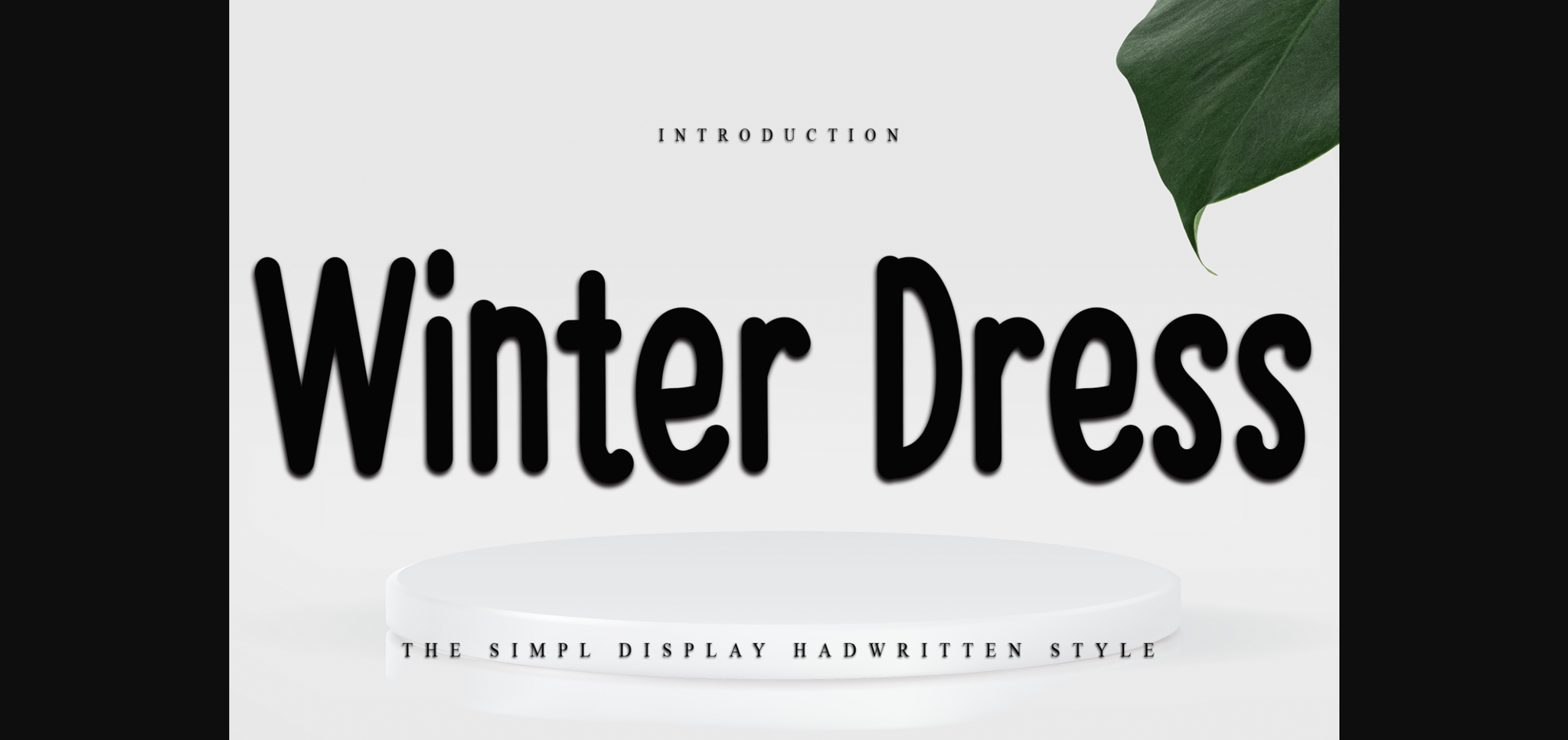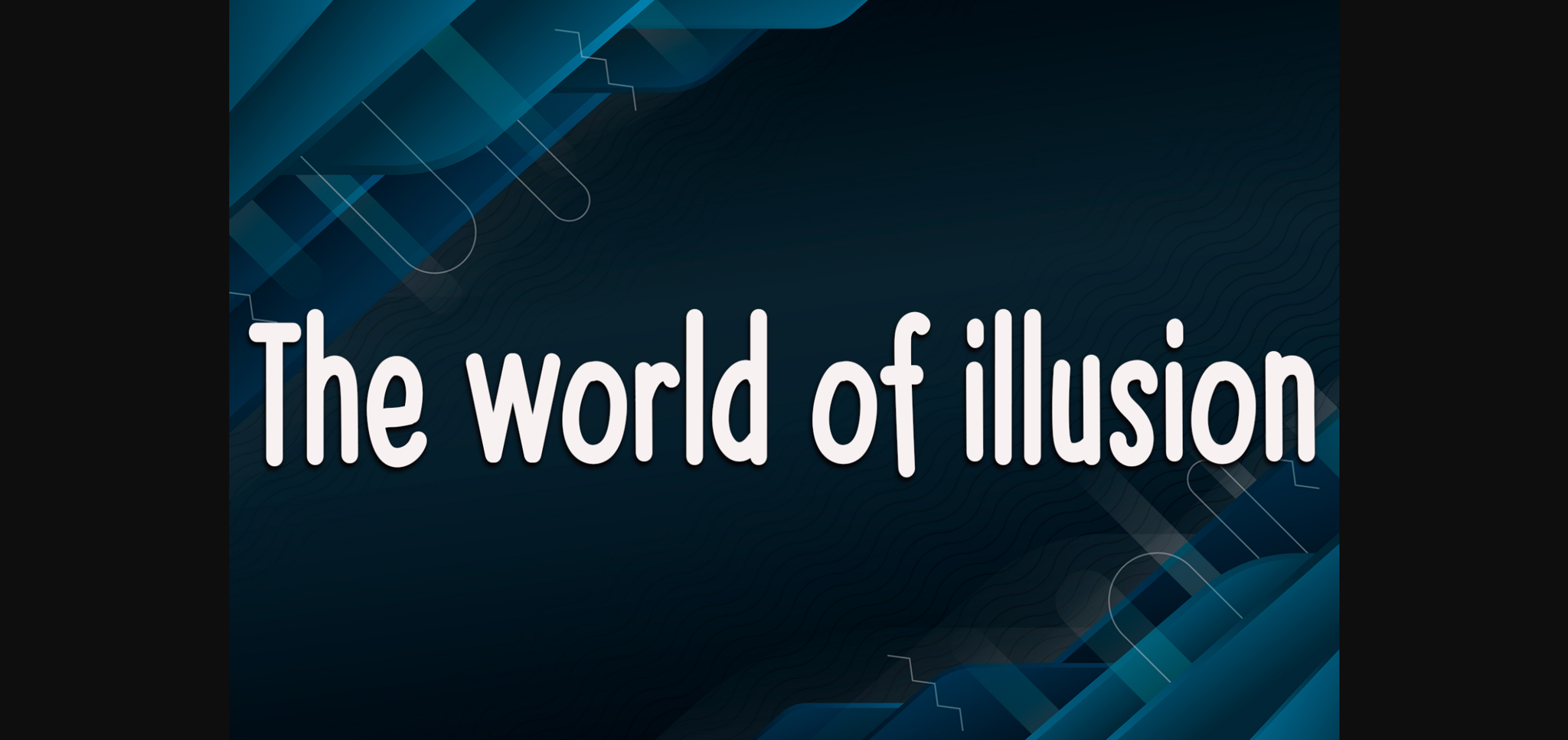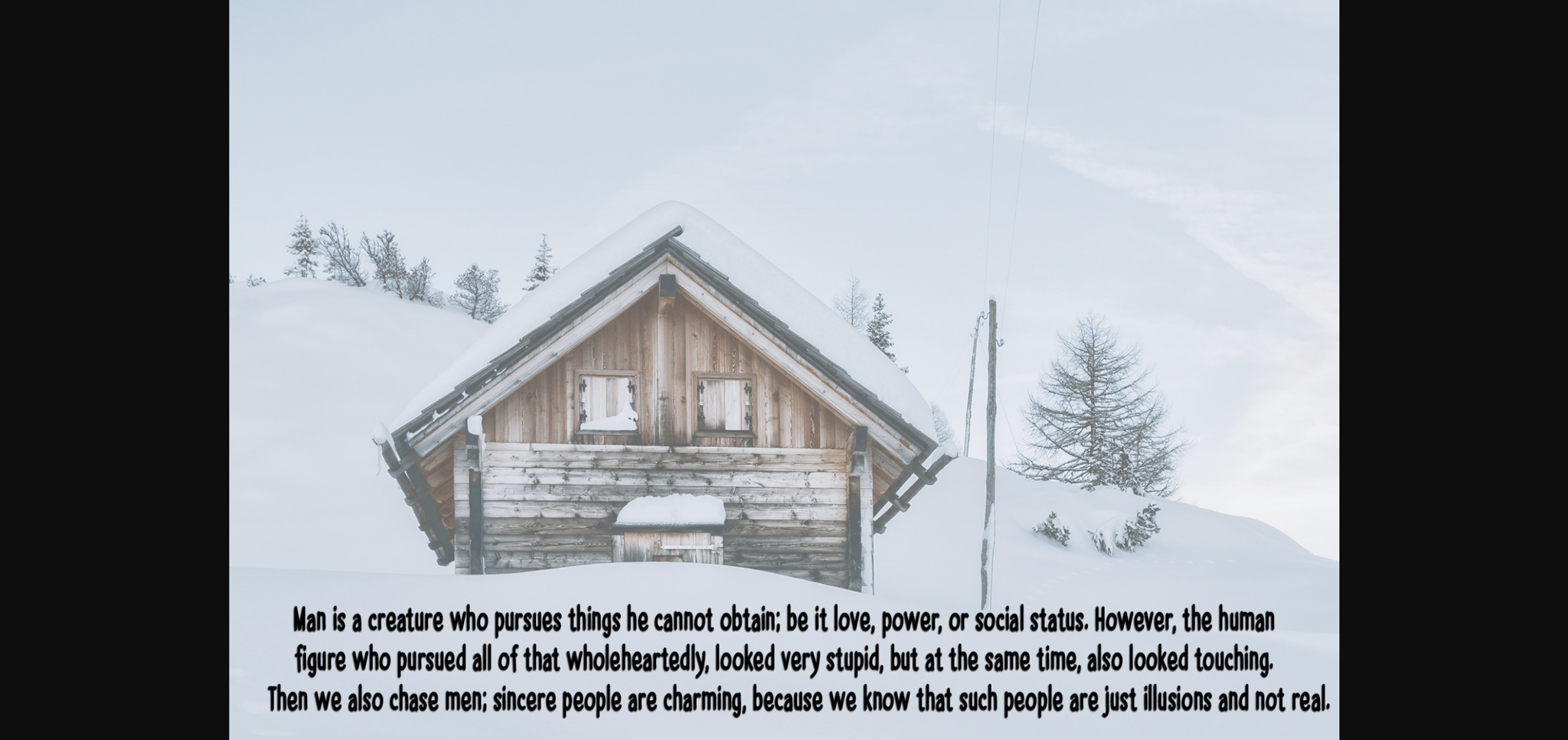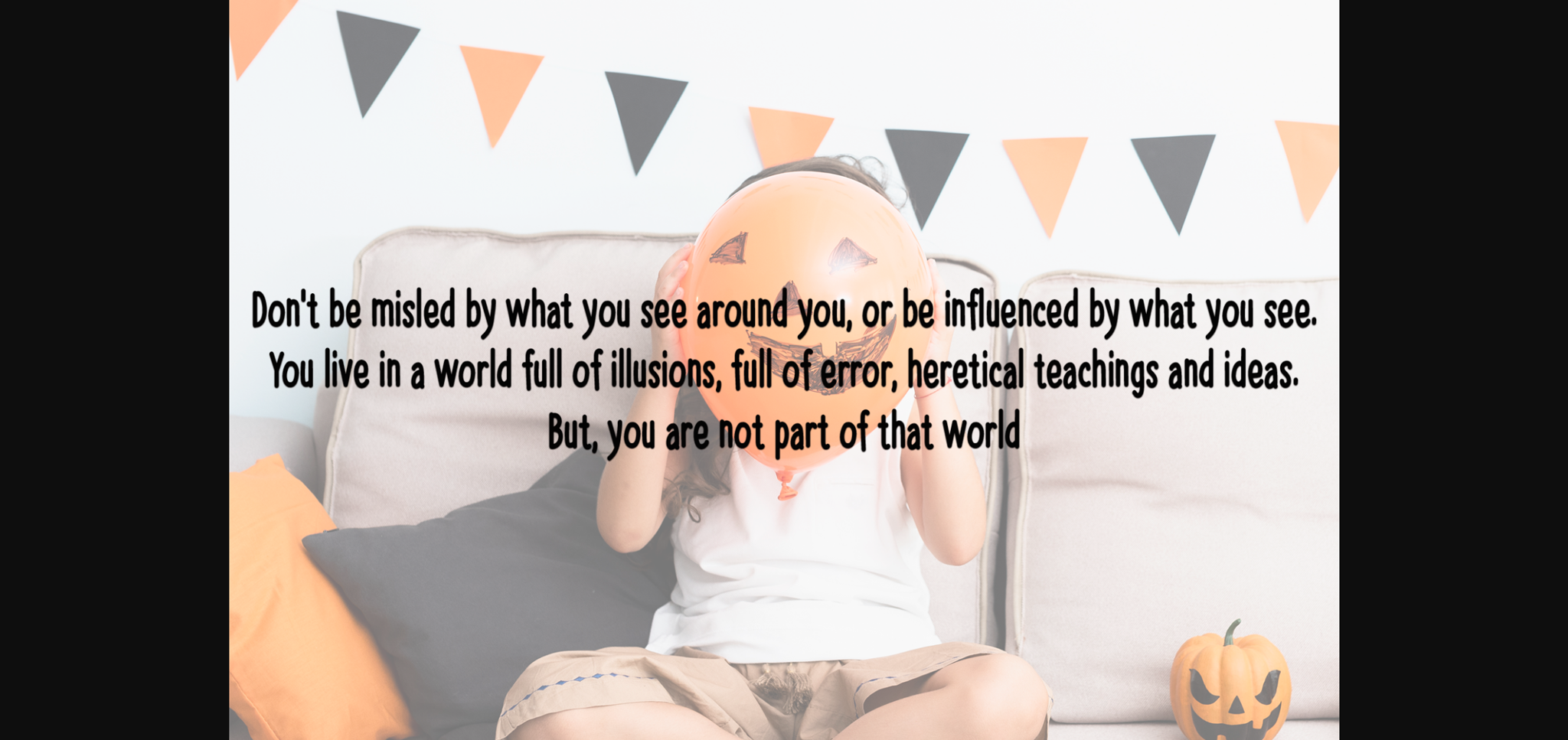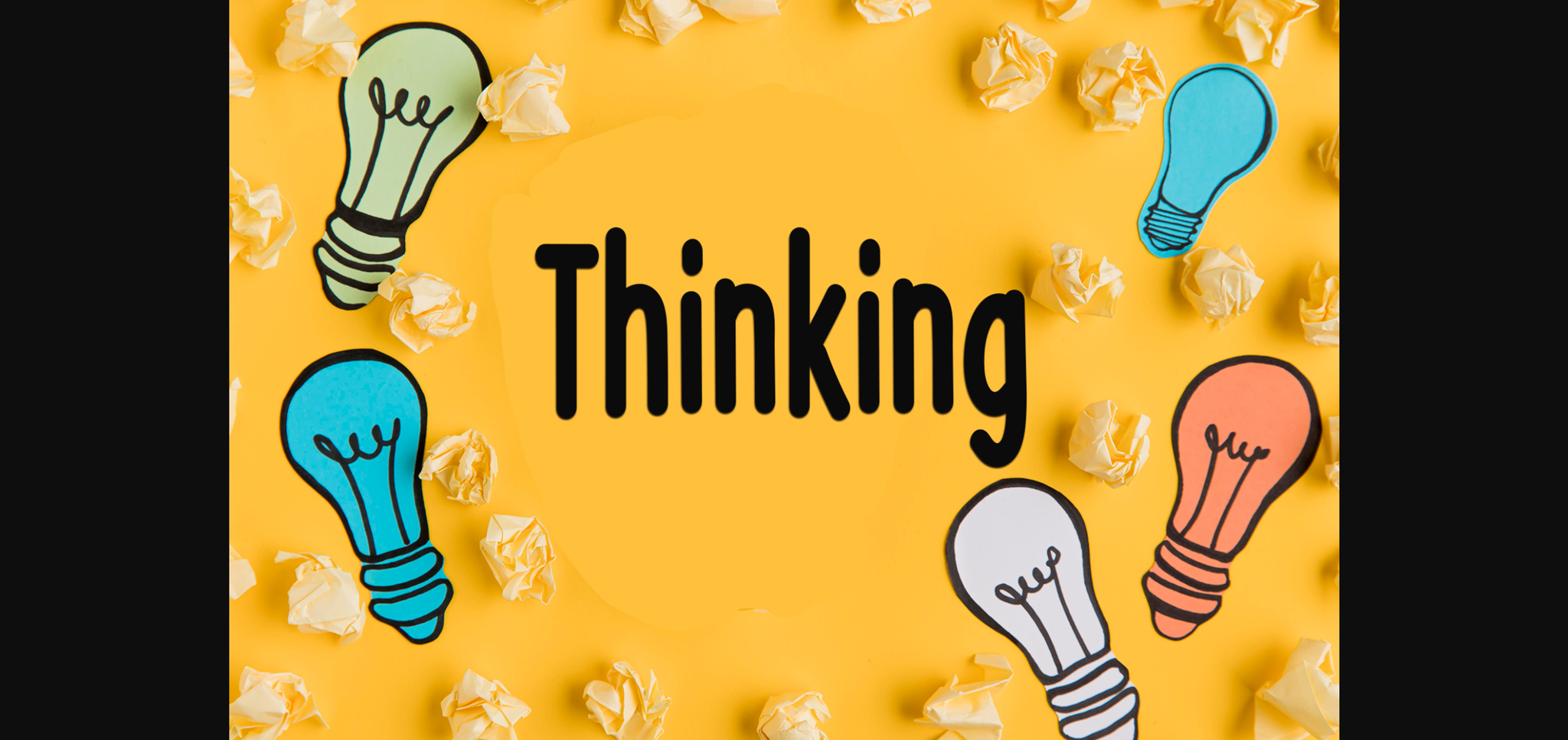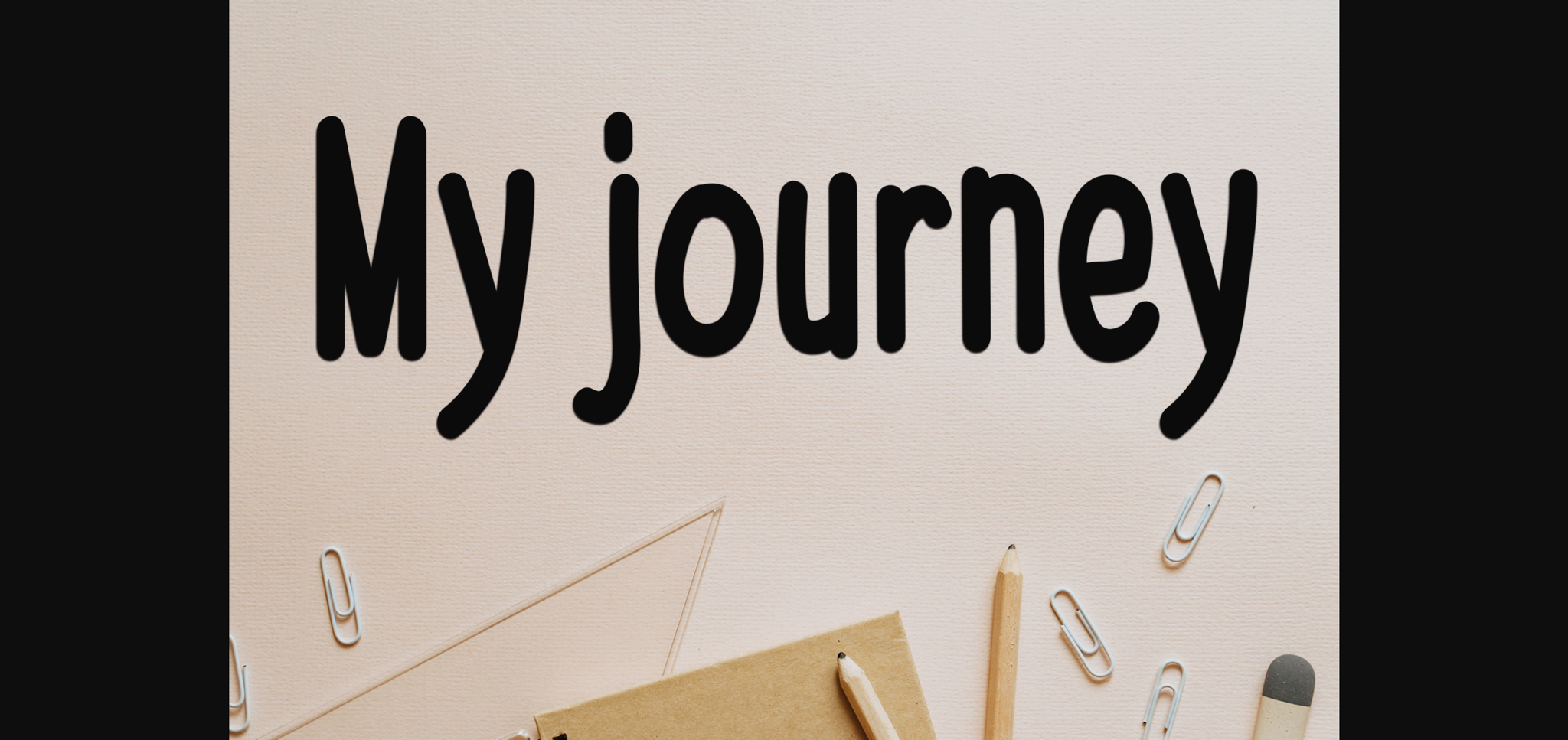
Winter Dress Font
About Winter Dress Font
Winter Dress is a cool, simple, and playful sans serif font. Incredibly versatile, this font fits a wide pool of designs, elevating them to the highest levels. Add this font to your favorite creative ideas, and notice how it makes them come alive!